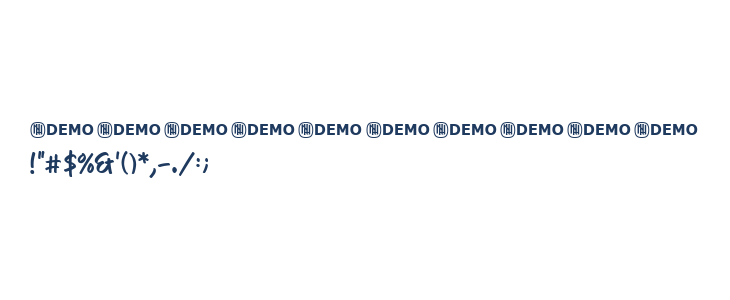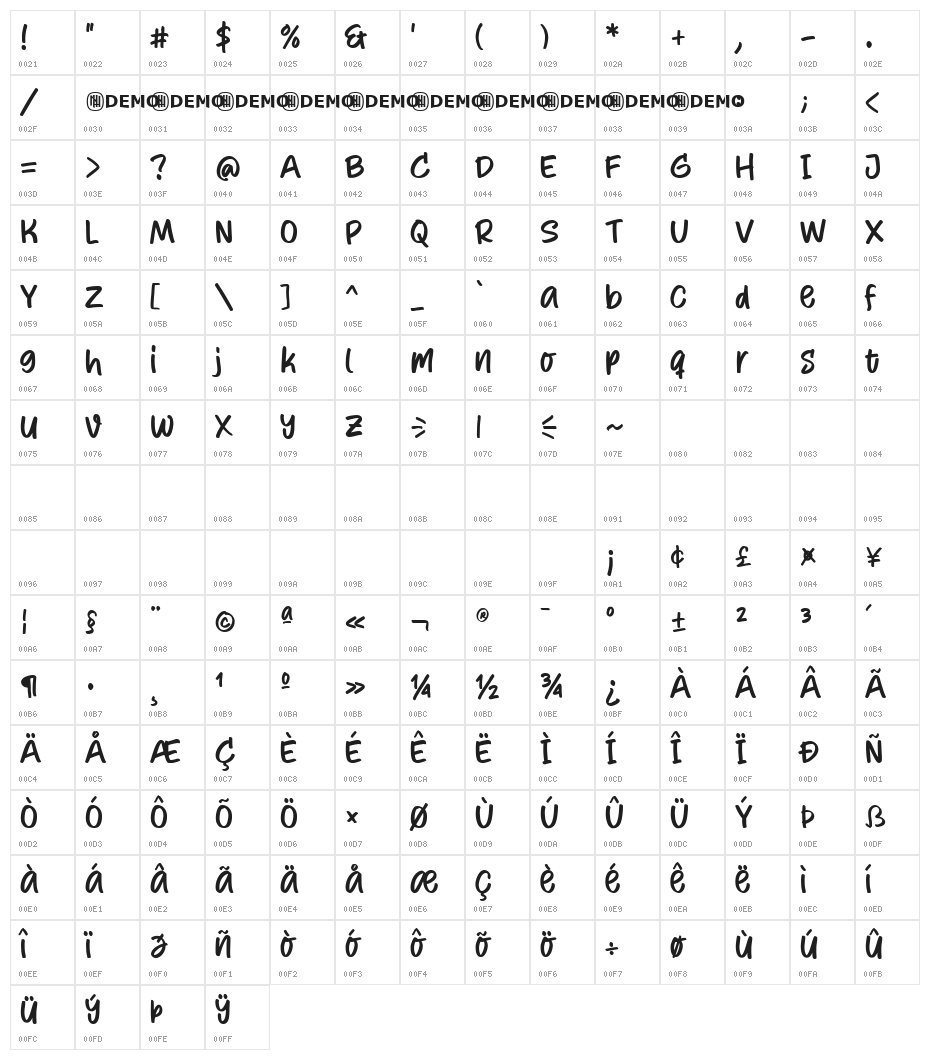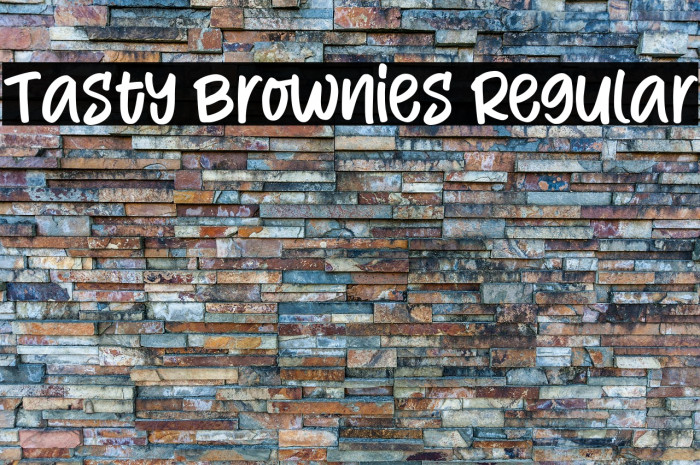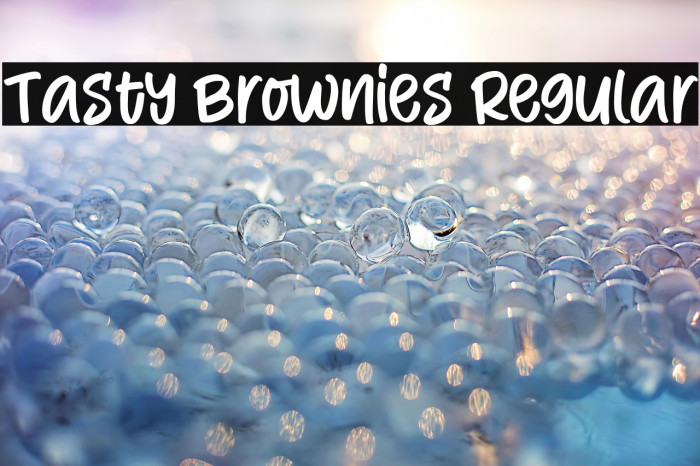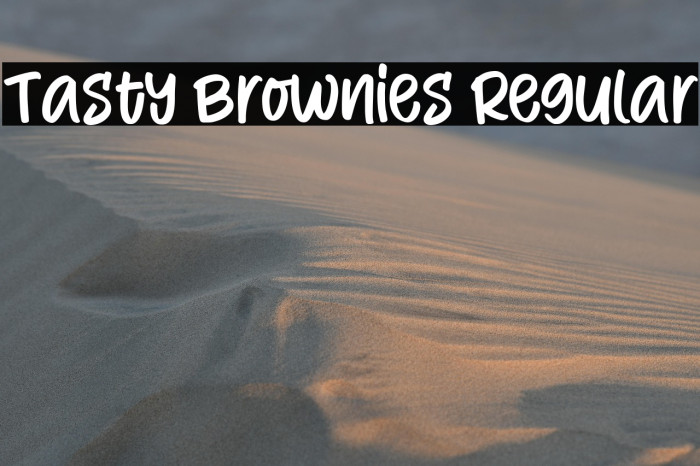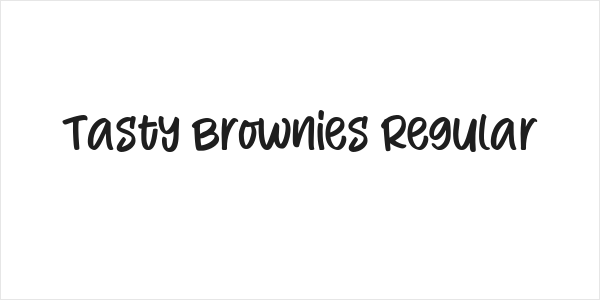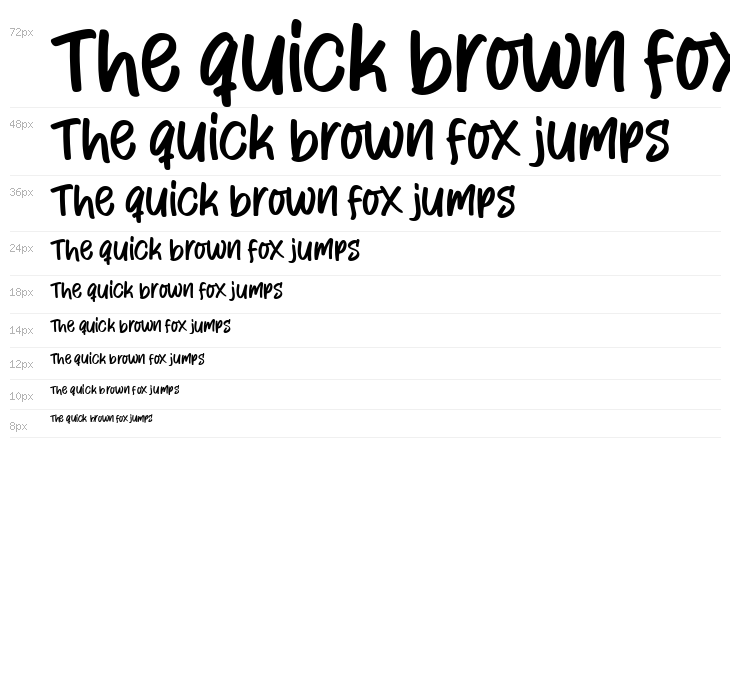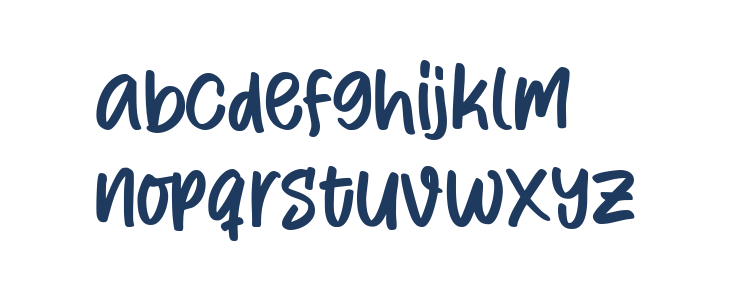
Tasty Brownies Regular Font
Tasty Brownies Regular Description
This playful and bold font features a handwritten style with a casual and friendly appearance. The letters are rounded and slightly irregular, giving it a lively and energetic feel. The uppercase and lowercase characters maintain a consistent style, with a smooth flow and a touch of whimsy. The numbers and special characters are designed to match the overall aesthetic, making it versatile for various uses. The font's thick strokes and rounded edges contribute to its approachable and informal look, making it ideal for creative and fun projects.
| Proposed Projects | Ideal for greeting cards, children's books, playful branding, and social media graphics. |